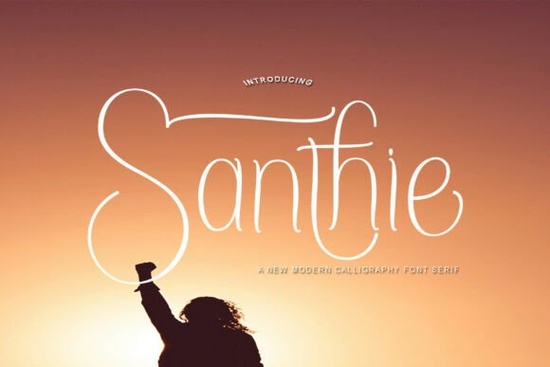
The Santhie Font is a sleek sans serif typeface built for clean, modern layouts. Its simple letterforms feel open and readable, which makes it a solid choice for anyone who needs text to look crisp without extra fuss. Designers, crafters, print-on-demand sellers, and small business owners often pick this style for logos, social media graphics, product labels, and invitation suites. The typeface comes with a useful set of OpenType alternates that let you tweak certain letters for a more custom feel.
What makes Santhie Font stand out?
Santhie keeps things straightforward. The strokes are even, the geometry is balanced, and there’s no decorative weight pulling your eye away from the message. That restraint means it works across a wide range of visuals, from minimalist branding to casual t-shirt designs. Because the letter shapes are so clean, it pairs easily with busier visuals or colorful backgrounds without competing for attention. You get the essential file formats TTF, OTF, and web fonts (EOT, SVG, WOFF) so installation is simple whether you’re working on a desktop project or putting together a website.
Which projects suit this font best?
The short answer: almost anything that needs a contemporary, uncluttered look. Here are some common uses:
- Logos and branding – especially for startups, boutiques, or service-based businesses wanting a friendly, professional mark.
- Wedding invitations and stationery – the light, airy characters feel modern without being overly trendy.
- T-shirt and apparel design – the simple lines print cleanly on fabric, even at smaller sizes.
- Product labels and packaging – legible enough for ingredient lists, stylish enough for front-of-package titles.
- Social media posts and blog graphics – stays readable on mobile screens and doesn’t distract from photos.
- Posters and signage – holds up well when scaled up because of its even proportions.
These alternates are completely optional you can stick with the default letters and still get a cohesive result. When a project needs just a hint of personality, swapping one or two characters is often enough.
One of the practical strengths of this font is its wide language support. If your text uses a Latin-based alphabet, you’re likely covered. The character set includes:
Breton, Catalan, Czech, Danish, Estonian, French, German, Hungarian, Icelandic, Italian, Romanian, Scottish Gaelic, Slovak, Latvian, Lithuanian, Norwegian, English, Finnish, Polish, Portuguese, Slovenian, Spanish, Swedish, Turkish, Welsh, and more. That means you can keep a consistent typeface across multilingual branding materials without searching for additional fonts.
Is Santhie a good fit for print-on-demand sellers?
Yes. Print-on-demand businesses need fonts that look crisp on mockups and transfer reliably to physical products. Santhie’s simple construction reduces the risk of fine details filling in on mugs or t-shirts. Sellers also appreciate that the font is uncomplicated enough to let their designs work across multiple niches quotes, pattern text, birth announcements, and business merchandise all benefit from a neutral yet polished sans serif.
Could I pair Santhie with a serif font?
Pairing a sans like Santhie with a serif often gives projects a nice typographic contrast. If you’re building an invitation suite, for example, you might set the main details in Santhie and choose a graceful serif for the couple’s names. The Almero Serif family offers a refined counterpart without feeling heavy. For editorial-style layouts, Velique adds an elegant literary touch. If you want something lighter, Lyte Serif brings airy, modern serifs that won’t overpower the page. And for a more grounded, slab-like feel, Giteral gives you a sturdy companion. There’s even a Santhie Serif option if you want to stay within the same type family for a consistent, no-guesswork pairing.